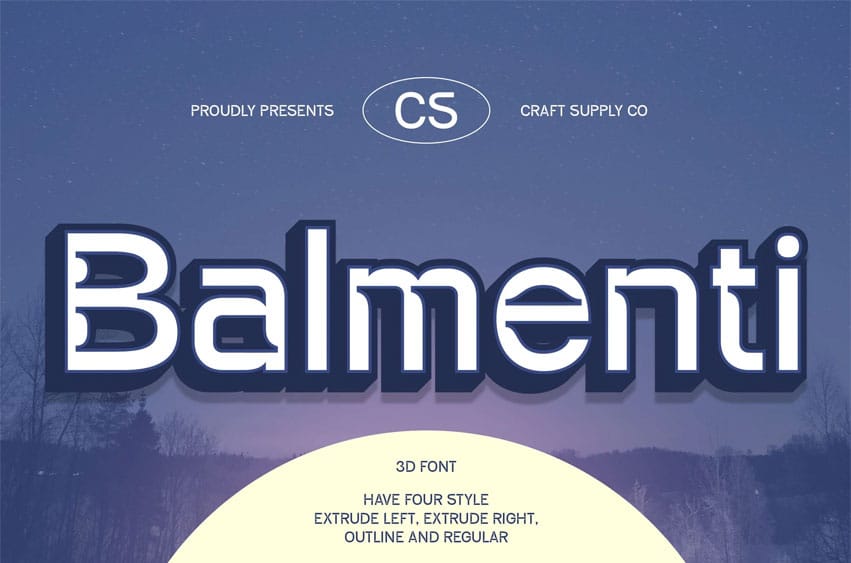
Balmenti 3D Font Futuristic Sans-Serif with Striking 3D Depth CS Balmenti 3D is a modern display sans-serif font that embodies an industrial, high-tech, and futuristic aesthetic. With its bold, geometric, and sturdy structure, this font exudes strength and precision. The 3D effect enhances its visual impact, adding depth and dimension to every letter, making designs appear more dynamic and powerful.
A Strong and Sophisticated Presence Designed for cutting-edge visuals, CS Balmenti 3D seamlessly blends modern technology with industrial aesthetics. Its clean yet commanding letterforms create an unmistakable presence, ensuring text stands out boldly and engagingly. The font’s precise and structured design reinforces a sense of reliability, innovation, and forward-thinking style.
Perfect for Futuristic and Tech-Inspired Designs CS Balmenti 3D is ideal for tech branding, gaming graphics, modern advertising, futuristic posters, automotive designs, and high-tech packaging. Whether used for headlines, logos, or promotional materials, this font captures a sleek, modern, and industrial vibe, making it a go-to choice for designs that demand innovation and impact.
A Cutting-Edge Typeface for the Future With its strong visual presence and high-tech appeal, CS Balmenti 3D is the perfect typeface for designers looking to create bold, futuristic, and dimensional compositions. Its industrial yet refined character ensures versatility across a wide range of modern and high-tech applications, making it a must-have for forward-thinking creatives.